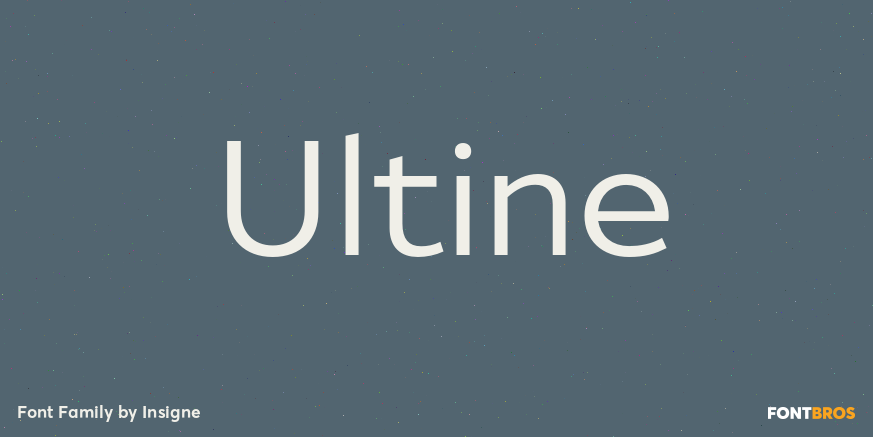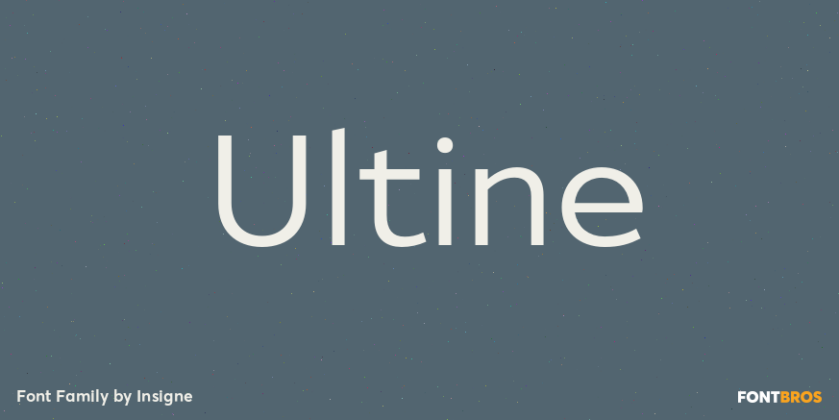
Ultine
About Ultine
No frills. No fluff. Still friendly. Keep your look clean and simple with the utilitarian but gentle Ultine. This font with a slightly extended geometric architecture gets straight to the point without pushing your reader away with too firm an approach.…